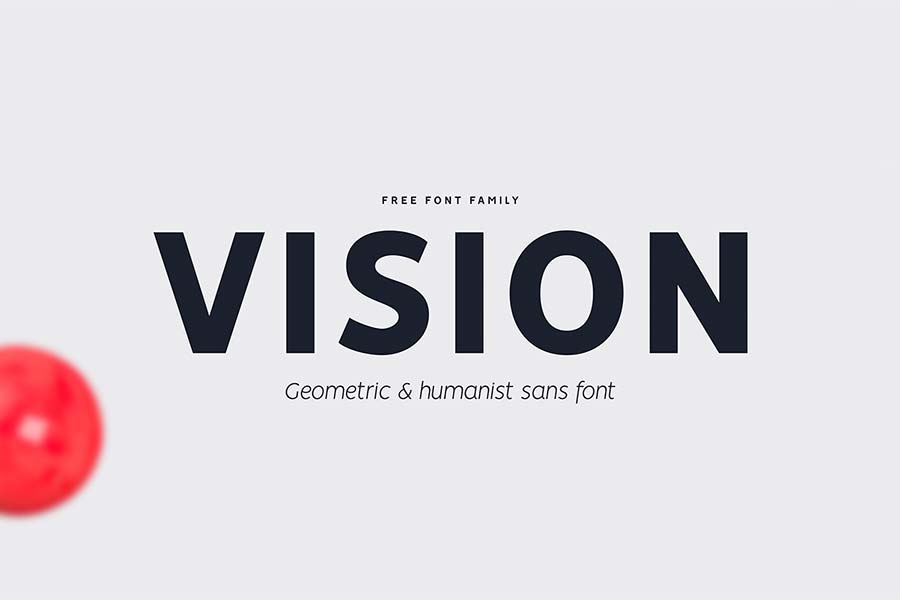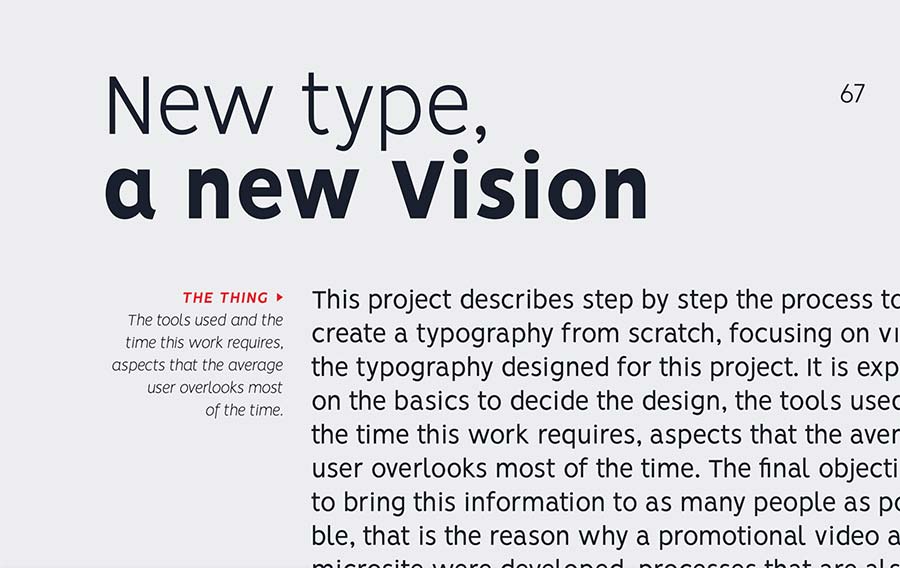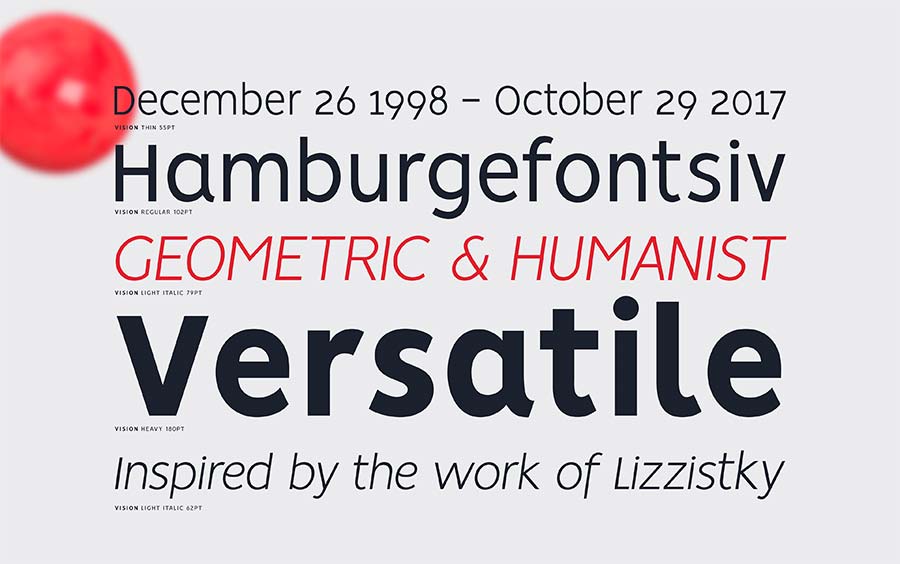
Vision is a clean, geometrical humanist sans serif font that is free to download. It comes with 6 weights ranging from thin to black, and each weight comes with italic version of the font too. It has extensive character set supporting more than 30 languages, plus opentype features and ligatures.
Vision works perfectly for both print, digital and user interface designs, from header display to small body text. You can use this font for your next personal or commercial projects.